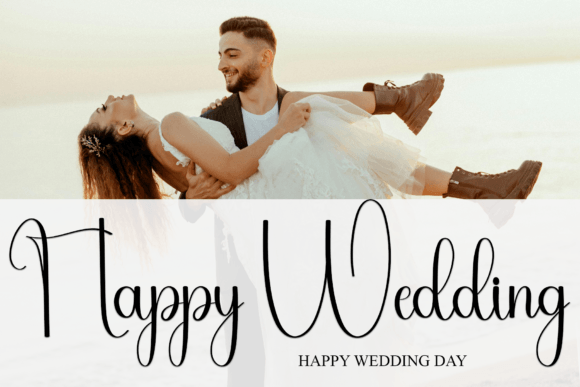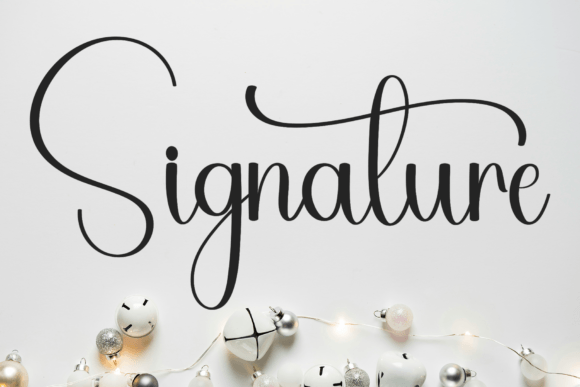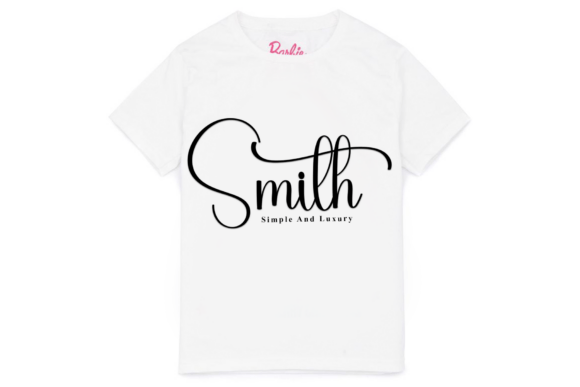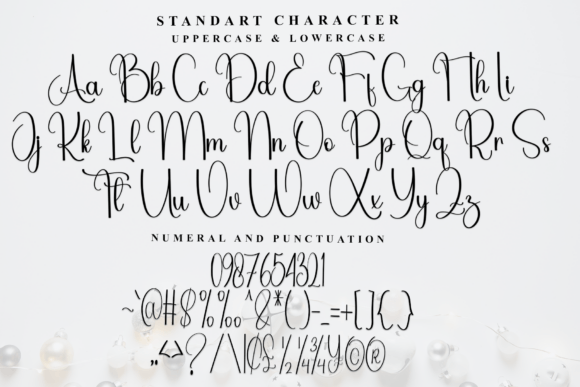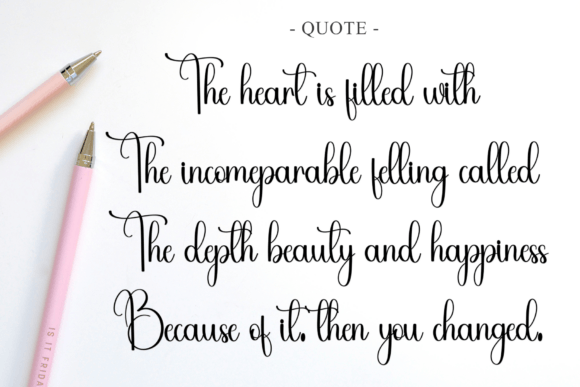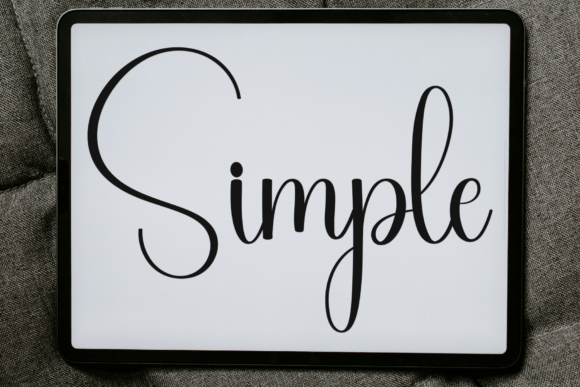
The Perfect Font for Your Next Masterpiece
As a designer, there’s nothing quite like the thrill of bringing a new project to life. You’ve poured over inspiration boards, sketched out ideas, and finally, you’re ready to add the finishing touches. But what if the right font could make all the difference? That’s where the Barbie Signature Font comes in – a stunning, elegant font that’s sure to elevate your work to the next level.
With its timeless classic calligraphy inspiration and impeccable form, the Barbie Signature Font is the perfect addition to any designer’s toolkit. Whether you’re working on a wedding invitation, a fashion brand’s marketing materials, or a personal art project, this beautiful font is sure to enhance the beauty of your creations. And with its PUA encoding, you’ll have access to all the amazing glyphs and ligatures you need to make your project truly stand out.
Barbie Signature Font Key Features
- Font Family: A unique, custom-designed font family specifically created for Barbie.
- Unique Characteristics: Features a distinctive, whimsical style with elegant curves and playful flourishes, reflecting the Barbie brand’s iconic aesthetic.
- Language Support: Supports a wide range of languages, including Latin, Cyrillic, and Greek alphabets, making it suitable for global design applications.
- Font Weight and Style: Available in multiple weights, including light, regular, bold, and italic styles, allowing for versatility in design applications.
Barbie Signature Font Review
I recently had the chance to work with the Barbie Signature Font, and I must say it’s an interesting addition to the world of typography. ✨ The font’s playful and feminine aesthetic makes it perfect for projects that require a touch of whimsy, like children’s books or magazines.
Here are some of the font’s strengths:
- ✨ The font’s curves and flourishes are well-designed and add a sense of elegance to text.
- ✨ The font is highly customizable, with a wide range of colors and styles available.
- ✨ The font is also highly legible, making it easy to read even at small font sizes.
- ⚠️ The font may not be suitable for more serious or professional projects, as it can come across as too playful or childish.
- ⚠️ The font’s design can be a bit too uniform, lacking the subtle nuances and variations that make some fonts more interesting to work with.
- ⚠️ The font’s customizability can also be a bit overwhelming, with too many options available.
Overall, I think the Barbie Signature Font is a fun and creative addition to any designer’s toolkit. While it may not be the best choice for every project, it’s definitely worth considering for projects that require a touch of personality and flair.
Getting the Most Out of the Font
To get the most out of the Barbie Signature Font, use it in combination with pastel colors and feminine graphics. You can also use it to create custom logos or branding for your business or personal projects.
The Barbie Signature Font is commonly used in the following projects:
– Personal branding and logos
– Fashion and beauty branding
– Kids’ party invitations and decorations
– Feminine-themed social media graphics
Alternatives to Barbie Signature Font for Designers
The Great Vibes Font is a beautiful, elegant script font that is perfect for adding a touch of sophistication to your designs. It’s ideal for use in invitations, wedding designs, and other special occasion graphics. Compared to Barbie Signature Font, Great Vibes Font has a more refined and luxurious feel, making it a great choice for high-end branding and marketing materials.